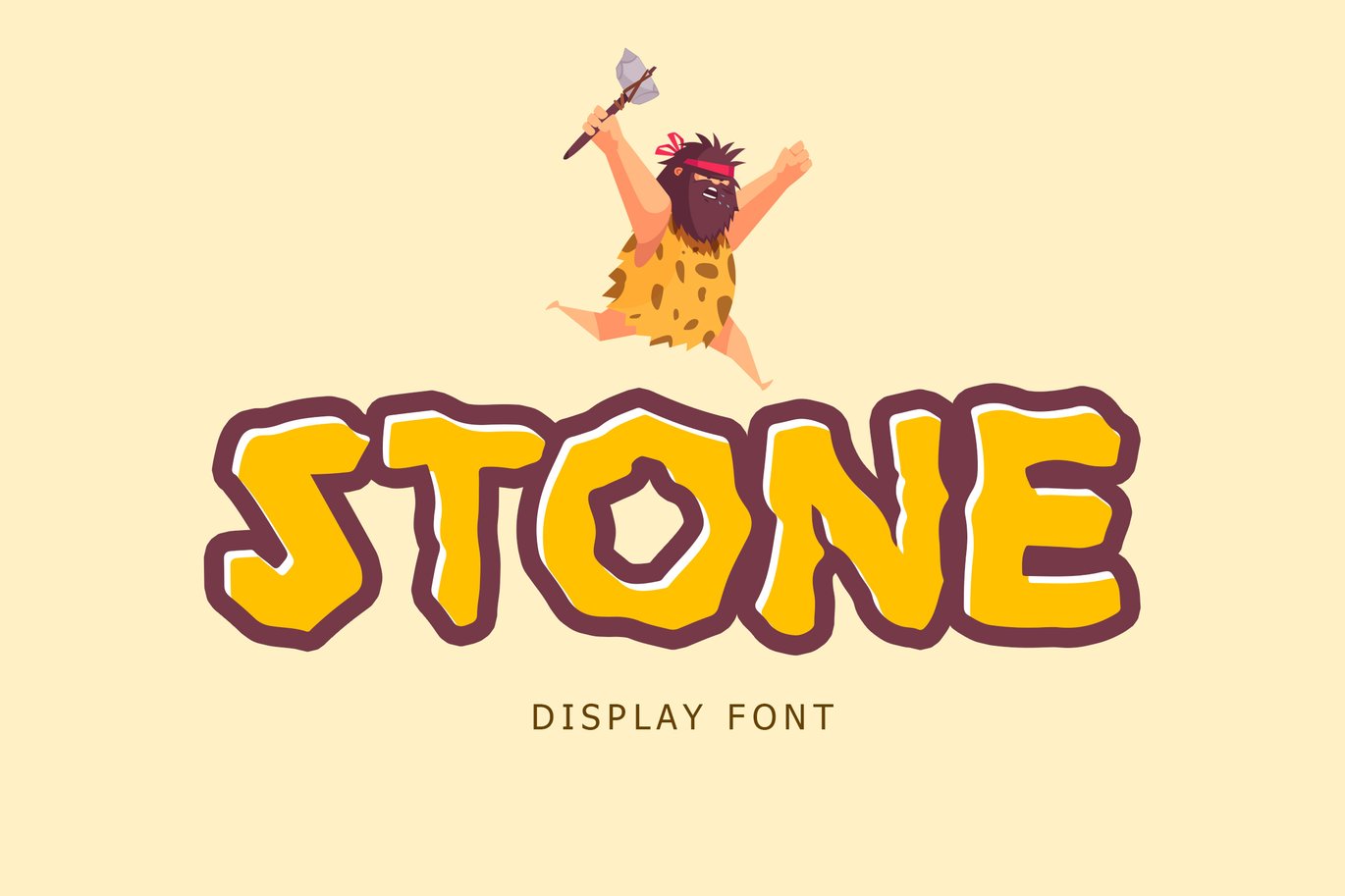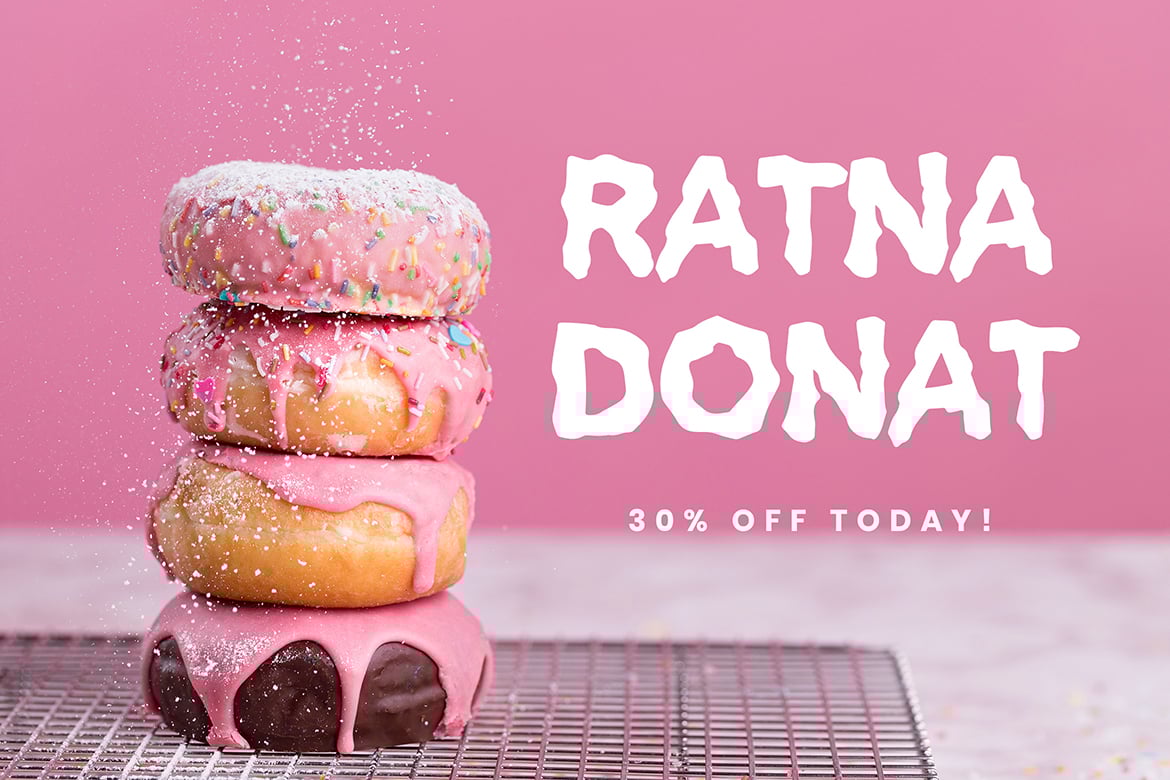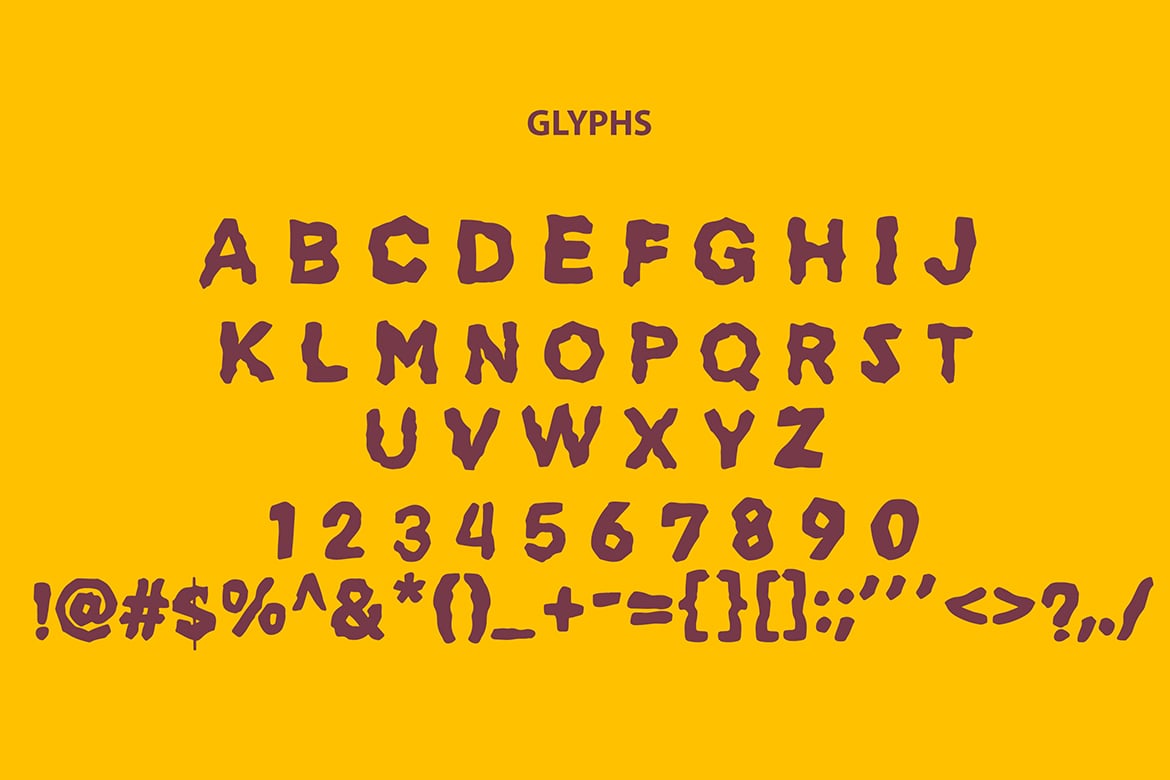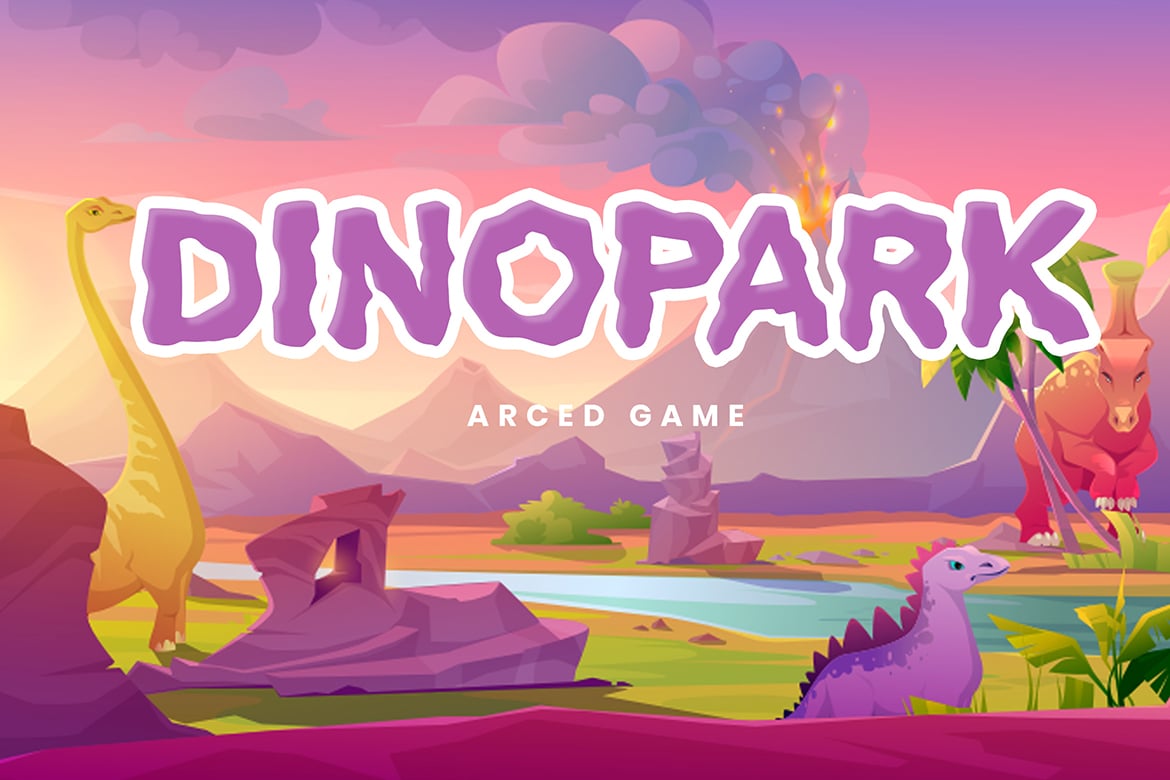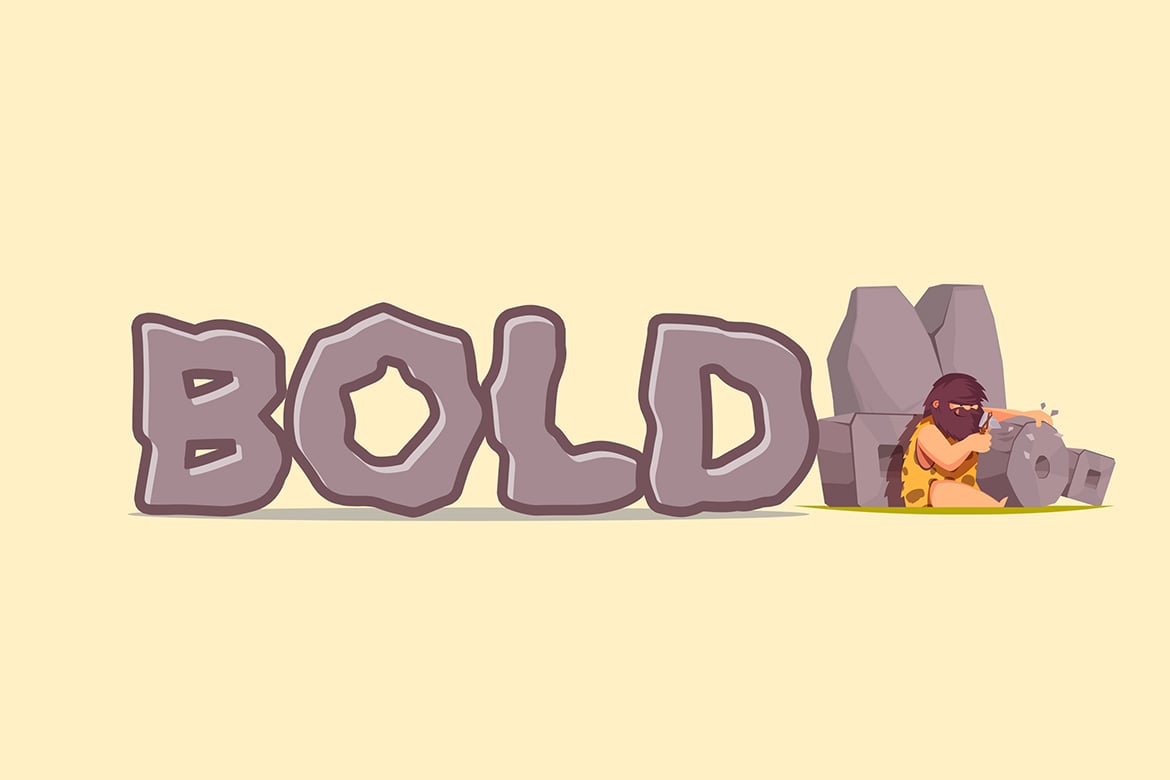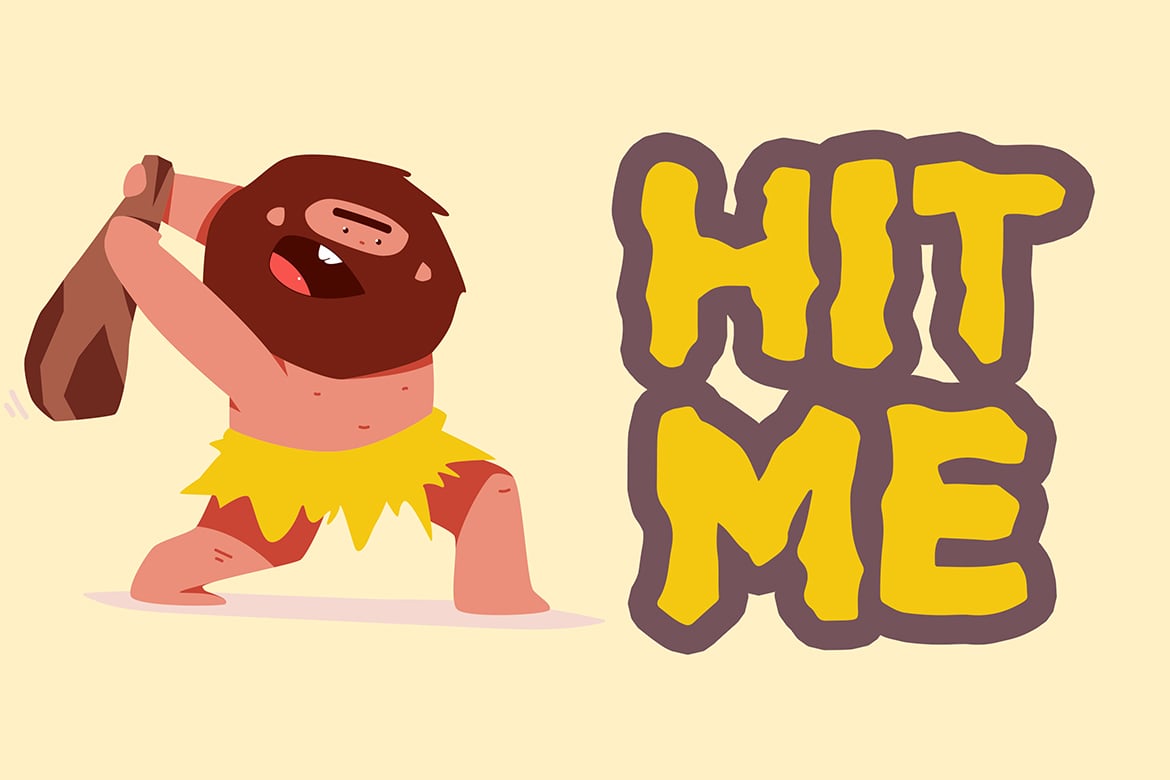
Stone Display Font
Stone an exciting and extraordinary display font that will make any kid-themed design stand out!
This font is perfect for branding projects, logo, tshirt designs, book cover design, social media posts, advertisements, product packaging, product designs, label, watermark, invitation, stationery and any projects.